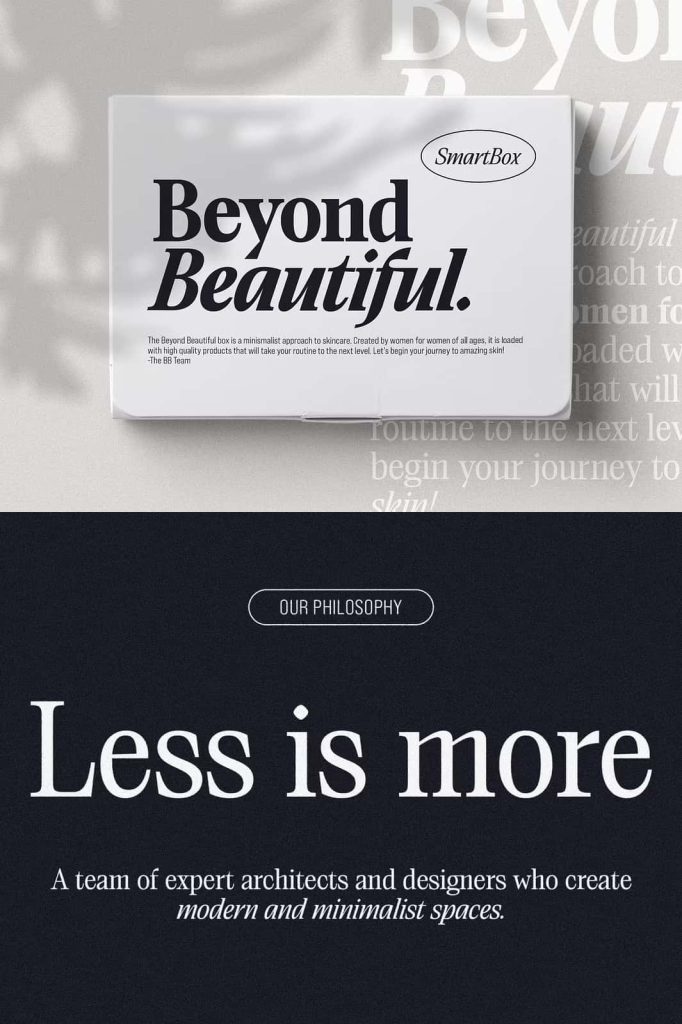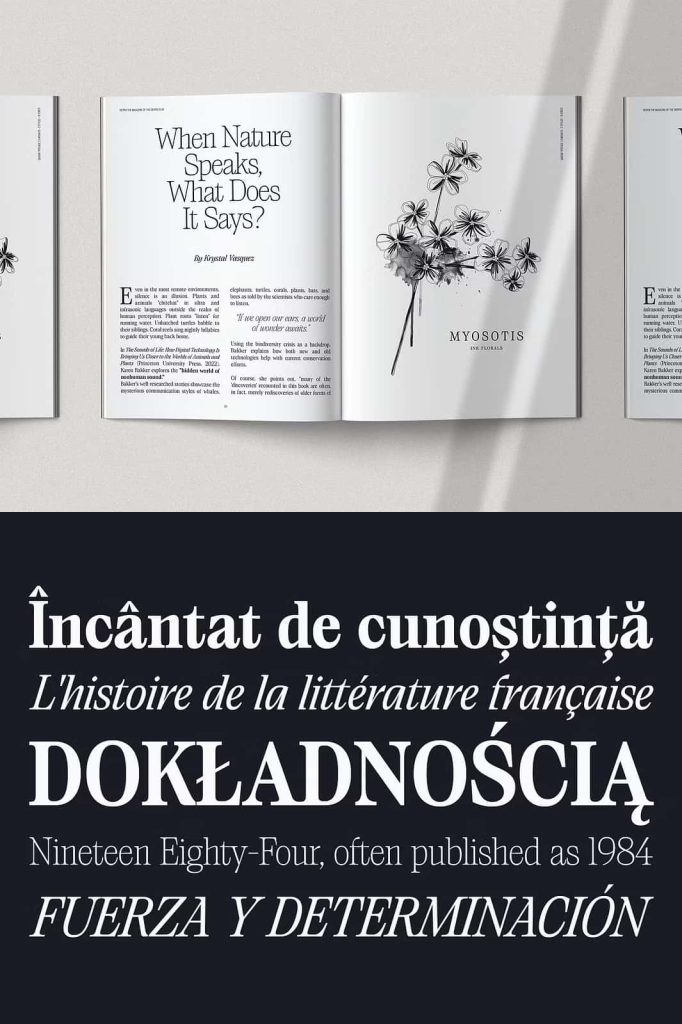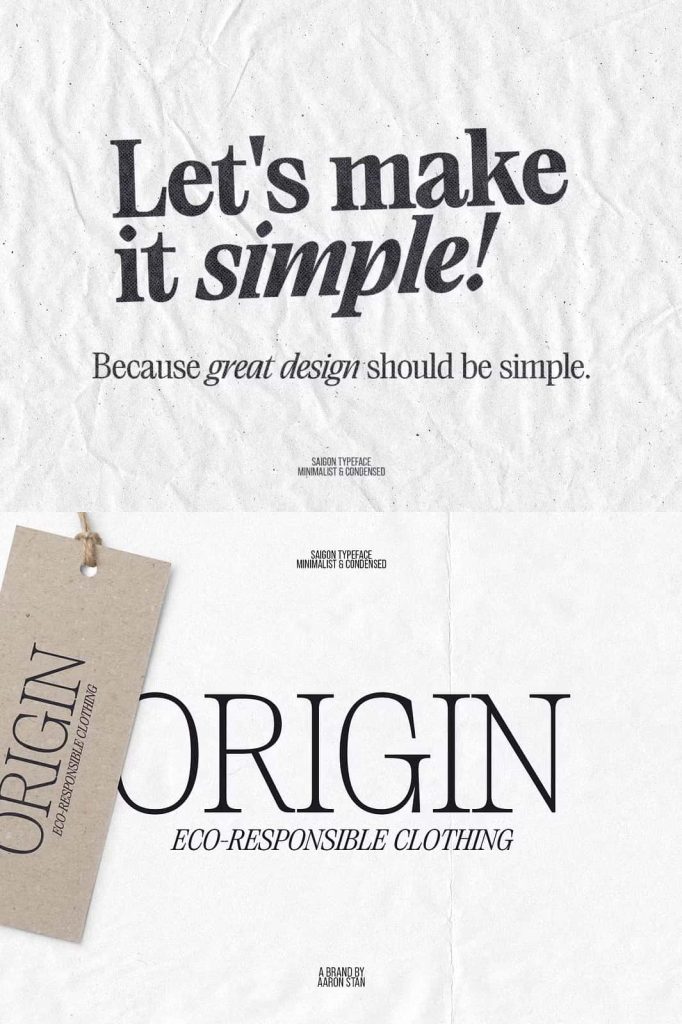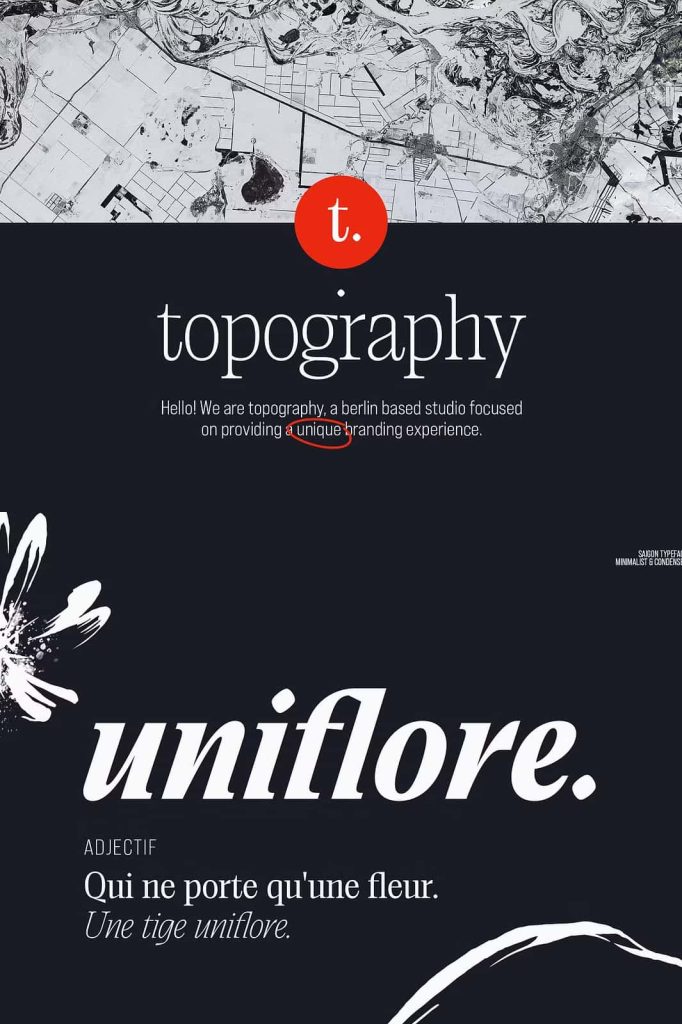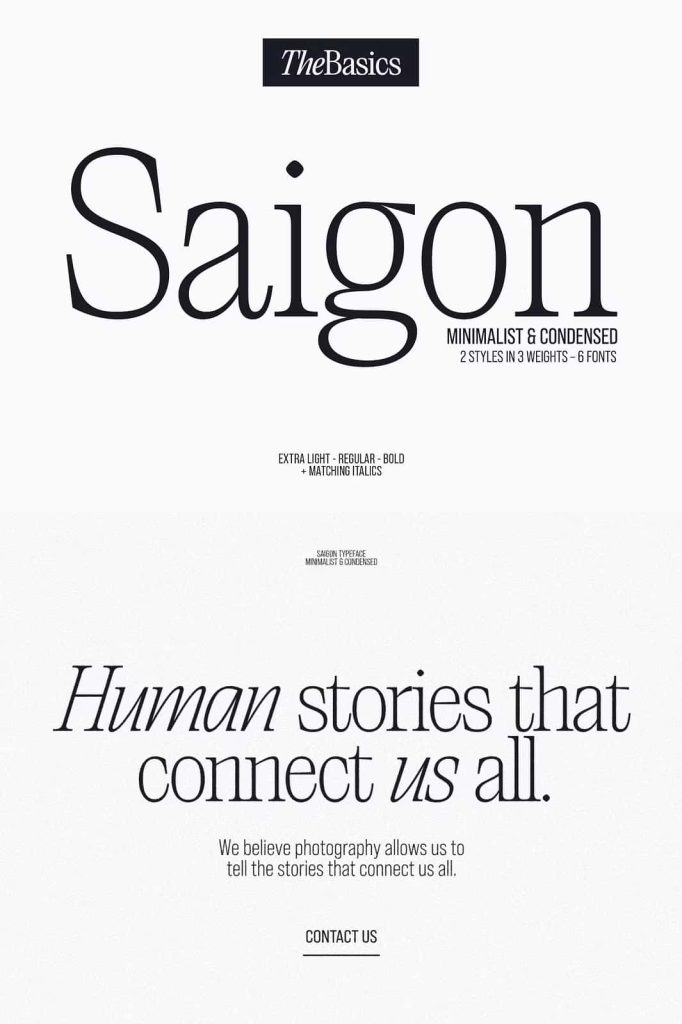
Saigon Minimalist Serif Font: Timeless Elegance for Editorial Design
A Refined Approach to Modern Serif Typography
Saigon is a minimalist condensed serif font family that brings clarity, precision, and elegance into every design. Built with clean lines and carefully crafted curves, this typeface embraces simplicity as its defining characteristic. Its understated design creates a timeless visual language that fits seamlessly into modern editorial layouts and professional branding.
The condensed structure allows you to maximize space without sacrificing readability. Each character stands tall and balanced, making Saigon an excellent choice for layouts that demand efficiency and sophistication. Its minimalist aesthetic ensures that your content remains the focal point, while the typography quietly enhances the overall presentation.
Balanced Design with Modern Italics
One of Saigon’s most distinctive features lies in its italic style. Instead of following traditional serif conventions, the italic introduces a more refined and modern interpretation. It moves away from heavy strokes and exaggerated forms, choosing instead a subtle and controlled design approach.
This modern italic blends effortlessly with the upright version, creating a harmonious rhythm across your typography. The pairing feels natural and cohesive, allowing you to build contrast and emphasis without disrupting the visual flow. Whether you use italics for highlights, quotes, or stylistic accents, Saigon maintains a consistent and polished appearance.
Key Characteristics
- Minimalist condensed serif design with clean and sharp lines
- Low contrast structure for improved readability
- Modern italic style that complements the upright font
- Efficient use of space without compromising clarity
- Balanced proportions for both print and digital layouts
Versatile for Display and Text
Saigon is designed to perform exceptionally well across a wide range of applications. Its low contrast serif structure ensures clarity in both large and small sizes, making it suitable for both display and body text. This flexibility allows designers to rely on a single typeface family for multiple purposes.
Use Saigon for bold headlines that demand attention while maintaining a refined tone. Its condensed form helps create strong visual impact without overwhelming the layout. At the same time, it remains highly readable in paragraphs, making it ideal for editorial content such as magazines, articles, and publications.
This versatility makes Saigon a practical choice for designers who want consistency across different elements of a project. From titles and subtitles to long-form text, the font adapts smoothly and maintains its elegant character.
Perfect for Editorial and Branding Projects
Saigon thrives in editorial environments where clarity and style must coexist. Its minimalist design supports content-heavy layouts while adding a subtle layer of sophistication. Designers can use it to create structured, professional compositions that feel modern and timeless at the same time.
In branding projects, Saigon communicates confidence and refinement. Its clean structure and contemporary details help establish a strong visual identity. Whether you design logos, packaging, or corporate materials, this typeface delivers a polished and cohesive look.
The font also works well in digital environments such as websites and social media. Its clarity ensures readability on screens, while its elegant design enhances the overall user experience. This makes Saigon a reliable choice for both print and digital design workflows.
Why Choose Saigon
Saigon offers a thoughtful balance between simplicity and functionality. It allows you to create designs that feel modern without losing their timeless appeal. By combining clean lines, a condensed structure, and a unique italic style, it provides a complete typographic solution for a variety of creative needs.
If you are looking for a serif font that delivers both style and practicality, Saigon stands out as a dependable and versatile option. Its minimalist approach ensures that your designs remain clear, elegant, and impactful across every application.